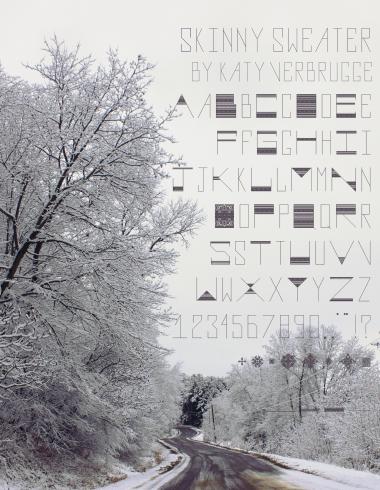
• a thin line weight with an ornate pattern
Incredible details! How long you make this font?
thank you! it took a week, working on it about 5-8 hours a day :D